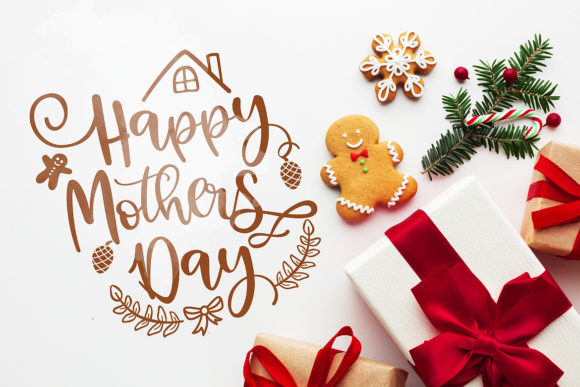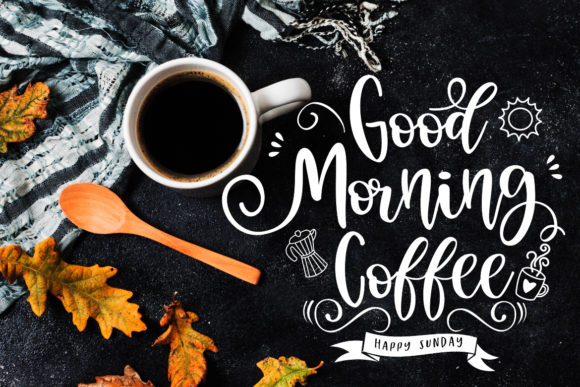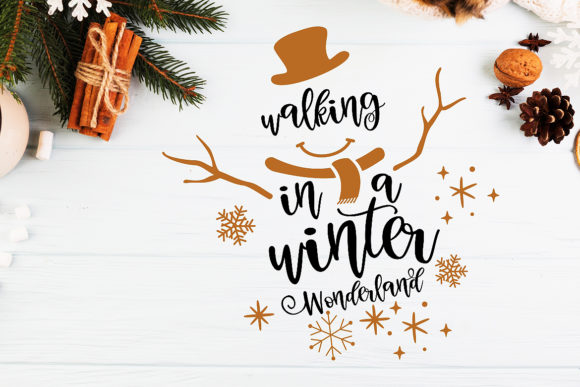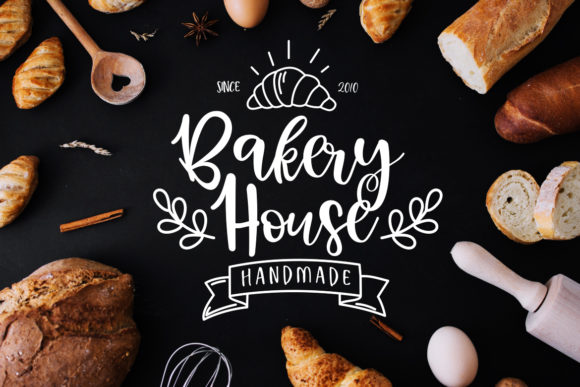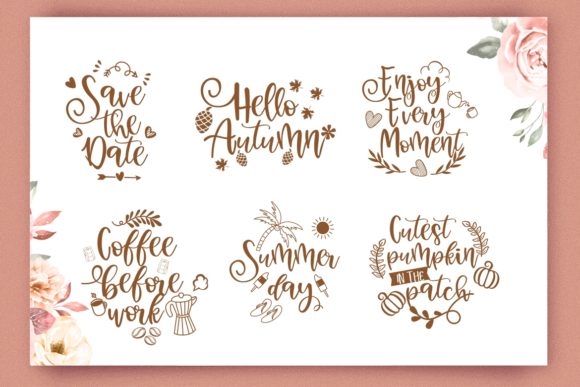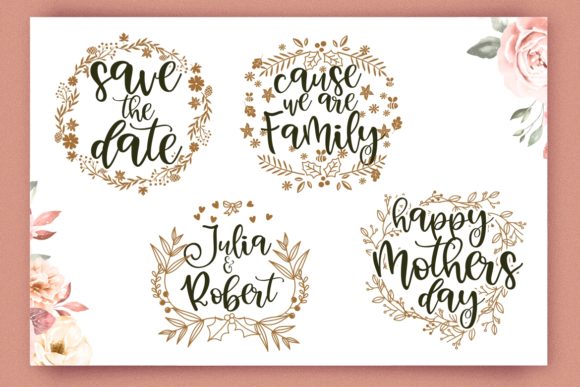
The Perfect Font for a Festive Touch
As designers, we’ve all been there – staring at a blank page, searching for the perfect font to bring our creative vision to life. It’s a moment of pure inspiration, where the right font can elevate our work from ordinary to extraordinary. For those special occasions, like holiday campaigns or festive branding, finding a font that captures the essence of the season can be a challenge.
Enter the Holly Days Font, a unique script that combines sweet swashes with authentic lettering. This beautifully crafted font is designed to add a touch of festivity to any design project. Its originality and charm make it a valuable asset for designers looking to create memorable and engaging visuals.
Holly Days Font Key Features
- Unique Characteristics: This font features a unique blend of traditional and modern elements, making it perfect for holiday-themed designs that require a touch of elegance and whimsy.
- Script and Ligature Support: Holly Days Font includes a wide range of script and ligature combinations, allowing for a high degree of creative freedom and flexibility.
Holly Days Font Review
I was excited to dive into the Holly Days Font, but my expectations were mixed. Let’s break it down.
- It has a clear holiday theme, which is perfect for seasonal designs.
- The font is well-structured and visually appealing.
- The script and decorative elements add a nice touch.
- The font can feel a bit too ‘over-the-top’ for some designs, which may be overwhelming.
- The character set is limited, which may not be suitable for extended text content.
- The font may not be as versatile as other holiday fonts on the market.
Overall, I’d say the Holly Days Font is a great choice for short, seasonal phrases or titles. However, it may not be the best fit for longer text content or more subtle designs. With some careful planning and balancing, this font can be a nice addition to your holiday projects.
The Holly Days font is perfect for festive and seasonal designs, such as Christmas cards, holiday invitations, and New Year’s Eve decorations.
Use it in bold and bright colors to add a playful touch to your designs.
Experiment with different font sizes and styles to create a unique and eye-catching look.
Alternatives to Holly Days Font
Great Vibes is a beautiful, modern script font that is perfect for adding a touch of elegance to your designs. It’s ideal for use in wedding invitations, greeting cards, and other special occasions. Great Vibes is a bit more formal than Holly Days Font, making it a great choice for more formal events.
Comparison: Great Vibes Font has a more refined and elegant feel compared to Holly Days Font’s playful and whimsical vibe.
Pacifico is a beautiful, handwritten font that is perfect for adding a touch of warmth and personality to your designs. It’s ideal for use in social media graphics, logos, and other casual designs. Pacifico is a bit more casual than Holly Days Font, making it a great choice for everyday use.
Comparison: Pacifico Font has a more relaxed and casual feel compared to Holly Days Font’s playful and festive vibe.
Carolyna Pro is a beautiful, elegant script font that is perfect for adding a touch of sophistication to your designs. It’s ideal for use in luxury brands, high-end products, and other premium designs. Carolyna Pro is a bit more formal and luxurious than Holly Days Font, making it a great choice for high-end brands.